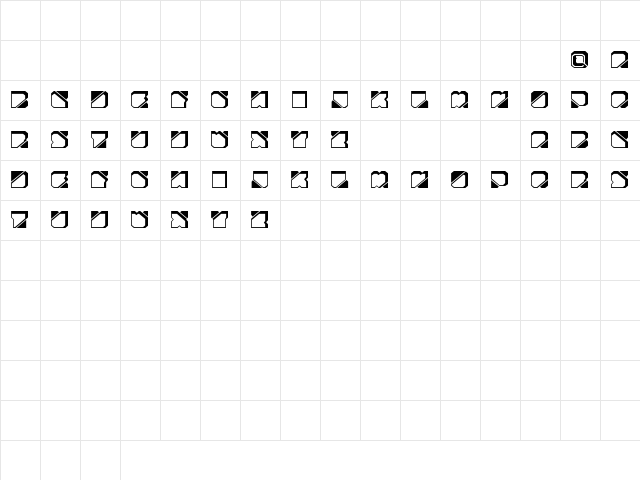
Complete Zuber future Future glyph index. Displaying only characters natively supported by Zuber future Future font.
Zuber future has a distinctly futuristic character, with geometric precision and clean angles that feel at home in technology, gaming, and sci-fi contexts.
Pro Tip: Try Zuber future with generous letter-spacing in UI labels and navigation - the geometric forms benefit from room to breathe.